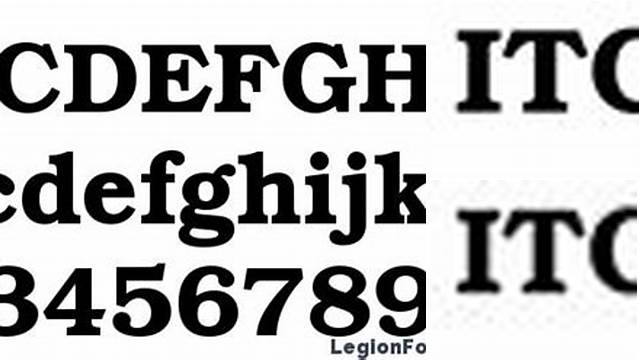
Hey everyone! Are you on the hunt for the ITC Bookman Demi font? Maybe you're a designer, a student, or just someone who loves playing around with fonts. Well, you're in the right place! I'm gonna walk you through everything you need to know about the ITC Bookman Demi font family, and, of course, how you can snag it for free. Let's dive in, shall we?
H2: Unveiling the Charm of ITC Bookman Demi Font
Alright, first things first: What exactly is the ITC Bookman Demi font? It's a member of the larger Bookman family, a classic serif typeface designed by Alexander Wilson and released by the ITC (International Typeface Corporation). The Demi style is a bold, yet elegant variation that's perfect for making a statement. Think of it as a more robust version of the regular Bookman. The design of the ITC Bookman Demi font is known for its readability and versatility. Guys, it's not just about the looks; it's about how well it performs. It's great for both body text and headlines. The font has rounded serifs, making it soft and friendly, which is why it's been a go-to for many designers over the years. You'll find it in books, magazines, websites, and even in some famous brand logos. It's a workhorse font that’s stood the test of time, and trust me, it’s got a certain je ne sais quoi that makes it incredibly appealing. The spacing and the weight of the font are meticulously crafted to provide a balance between elegance and clarity. This makes it exceptionally easy to read at various sizes. It’s not just the Demi style that's appealing; the whole Bookman family offers a range of styles that make it a versatile choice for any design project. The key characteristics of the font are its clean lines, which give it a modern feel, while the serifs still provide a touch of traditional elegance. The slightly condensed appearance of the Demi version ensures it maintains a strong presence. Whether you're crafting a website, designing a logo, or putting together a presentation, ITC Bookman Demi is a brilliant choice.
H2: Why You Should Consider Using ITC Bookman Demi
So, why should the ITC Bookman Demi font be on your radar? Well, there are several compelling reasons, guys. First off, it's a fantastic choice for improving readability. The font's design, with its balanced curves and clear letterforms, ensures your text is easy on the eyes, which is crucial for keeping your audience engaged. In the world of design, where every detail matters, ITC Bookman Demi excels in making your text more accessible and enjoyable. The font also has a timeless aesthetic. It isn't just a passing trend. Its classic design has been used for ages, and it continues to be a favorite among designers, from the older generation to the new up-and-coming creatives. The ITC Bookman Demi font offers a sense of sophistication and professionalism. The Demi weight adds a touch of boldness, which is a perfect fit for headlines and subheadings, which make them grab the reader's attention. Another great aspect is that it's highly versatile. You can use it in a whole bunch of different projects, ranging from printed materials like books and magazines to digital designs, such as websites and social media posts. It's also super easy to pair with other fonts, making it a flexible addition to your design toolkit. This means you don't have to limit yourself to using it on its own; you can mix and match it with other fonts for some exciting results. Plus, the ITC Bookman Demi font family is well-supported and readily available, making it super convenient to implement in your projects. Lastly, if you're aiming for a classic, readable, and professional look, the ITC Bookman Demi font is the way to go. Trust me, it's an excellent investment for any designer or anyone needing a reliable font.